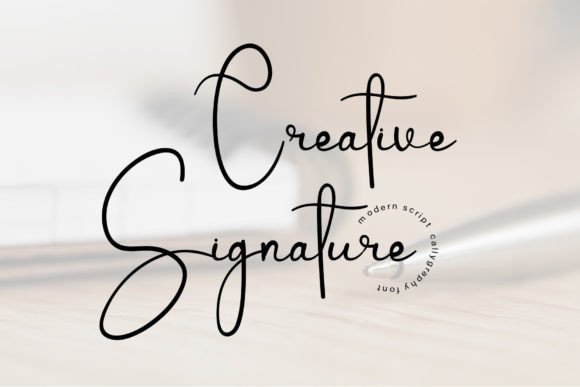
Unlock Your Unique Style with the Creative Signature Font
Remember that moment when you finally found the perfect font to match your creative vision? The one that made all your designs come alive and stood out from the crowd? For designers, finding the right font can be a game-changer, and that’s exactly what the Creative Signature Font offers.
This beautiful, casual-looking display font is perfect for adding a touch of personality to your titles, invitations, letters, and other informal projects. With its PUA encoding, you’ll have access to all the amazing glyphs and ligatures, giving you endless possibilities to express your creativity.
Whether you’re a graphic designer, artist, or writer, the Creative Signature Font is a valuable addition to your toolkit. Its unique style and versatility make it a must-have for anyone looking to add a creative twist to their work.
Creative Signature Font Key Features
- Font Styles: The Creative Signature Font includes 4 unique font styles: Regular, Italic, Bold, and Bold Italic, providing versatility for various design applications.
- Character Set: The font includes a comprehensive character set, including uppercase and lowercase letters, numbers, punctuation, and special characters, ensuring readability and consistency.
- Unique Characteristics: The font features a distinctive, hand-crafted design with subtle flourishes and elegant lines, adding a touch of sophistication and creativity to any design project.
Designer Review: Creative Signature Font
Overall, I found the Creative Signature Font to be a stylish and elegant addition to any design project. ✨ The font’s unique combination of curves and lines creates a sophisticated look that’s perfect for branding and marketing materials. It’s also highly versatile, working well in both digital and print applications.
One of the standout features of this font is its extensive character set. ✨ It includes a wide range of punctuation marks, ligatures, and special characters, making it ideal for designers who want to create complex and detailed typography. Additionally, the font is highly customizable, allowing designers to adjust the font size, color, and spacing to suit their needs.
- ⚠️ Some users may find the font’s unique style to be too ornate or busy, which can be overwhelming in certain contexts.
In conclusion, the Creative Signature Font is a high-quality and visually appealing font that’s perfect for designers who want to create sophisticated and elegant typography. While it may have some limitations, the font’s versatility and customizability make it a valuable addition to any design toolkit.
The Creative Signature Font is perfect for:
- Social media graphics and posts
- Personal stationery and invitations
Q: Can I customize the Creative Signature Font to fit my specific design needs?
Yes, the Creative Signature Font is a highly customizable font that supports a wide range of OpenType features, including ligatures, swashes, and stylistic sets. You can also use font editing software to customize the font to fit your specific design needs.